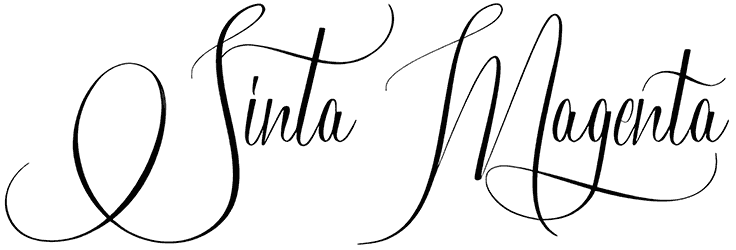
Sinta Magenta Font
Today, we want to show you a gorgeous calligraphy font, Sinta Magenta. It has soft, flowing lines that flare out at your design in a graceful manner, making the resistance hard toward it and giving a finishing blow afterward.
It adds a personal touch that will help to express your message comfortably. This funeral font doesn’t include any numerals or punctuation. You can consider it for creating wedding invites, greeting cards, home décor, signature-style logos, and fashion-related projects.